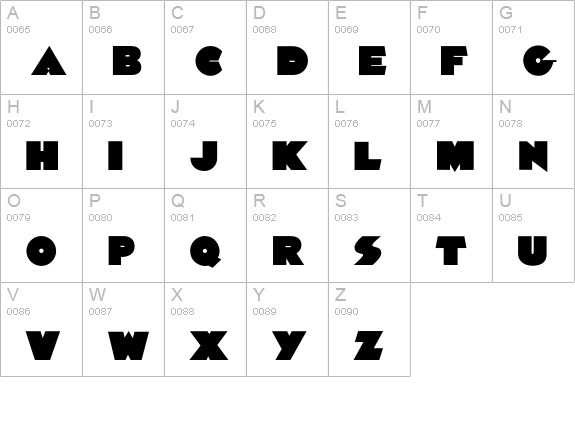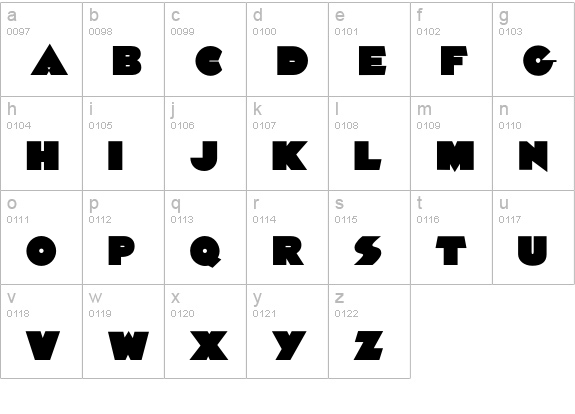
BigBlack Font Details
Introducing BigBlack font - a bold and striking typeface designed to make a big impact in your projects. With its strong, thick lines and commanding presence, BigBlack font is perfect for headlines, logos, posters, and any design that needs to stand out. This font exudes power and confidence, making it ideal for projects that require a bold statement. The best part? BigBlack font is completely free to download at FontsMarket.com. This means you can add this powerful font to your collection without breaking the bank. Don't miss out on the opportunity to enhance your designs with the impactful BigBlack font - download it today and let your creativity shine!